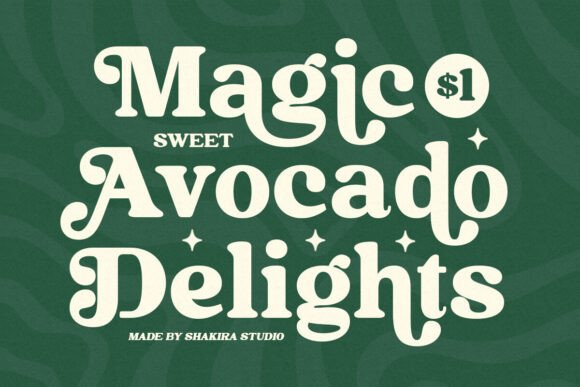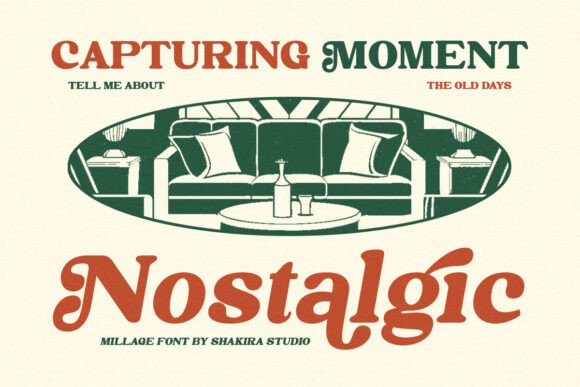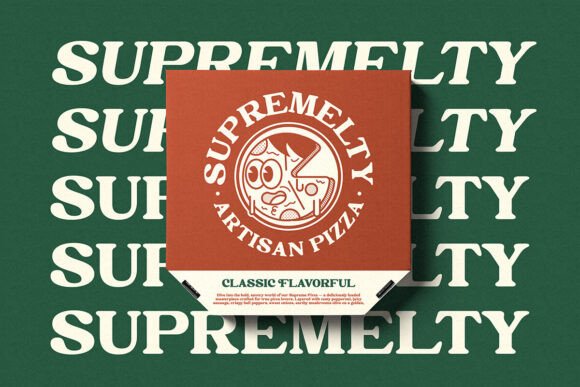
Introduction to Millage Font
As designers, we’ve all been there – staring at a blank canvas, searching for that perfect font to bring our creative project to life. And sometimes, it’s not just about finding the right font, but also about capturing the essence of a bygone era. Enter the Millage Font, a commanding retro serif typeface that’s set to transport you back in time with its bold vintage aesthetics.
With its chunky serifs and dynamic italic variant, the Millage Font delivers exceptional flexibility for brands seeking both vintage authenticity and fresh appeal. Whether you’re working on a craft beer branding project, creating vintage product packaging, or designing a retro diner identity, this font is sure to bring back the bold retro vibes that will leave a lasting impression.
Key Features of Millage Font
- High-quality font with a unique, creative design perfect for various projects, including digital art and print media.
- Perfect for use in creative projects, such as logos, posters, and other visual materials, where a unique and eye-catching font is required.
Honest Review: Millage Font
As a designer, I’m always on the lookout for high-quality fonts that can elevate my creative projects. The Millage Font caught my eye with its sleek and modern design. Here’s my honest review:
- ✨ Unique design: Millage Font has a distinct aesthetic that sets it apart from other fonts. Its clean lines and subtle curves make it perfect for modern designs.
- ✨ High-quality: The font is well-crafted and works beautifully on various backgrounds, including transparent backgrounds.
- ⚠️ Limited font sizes: While the font is available in various weights, it’s not ideal for very large or very small text sizes.
- ⚠️ Limited language support: The font only supports a limited number of languages, which may be a concern for international projects.
Millage Font
Using Millage Font
Millage Font is ideal for designs requiring a high-quality, modern look, such as business cards, brochures, and presentations. Its transparent background makes it easy to layer over images or other design elements.
To get the most out of Millage Font, experiment with different font sizes, colors, and combinations to achieve the desired effect. You can also pair it with other design resources, such as graphics and icons, to create a cohesive look.
Millage Font is commonly used in a variety of creative projects, including:
Business cards and letterheads
Brochures and flyers
Presentation slides and documents
Web design and digital marketing materials